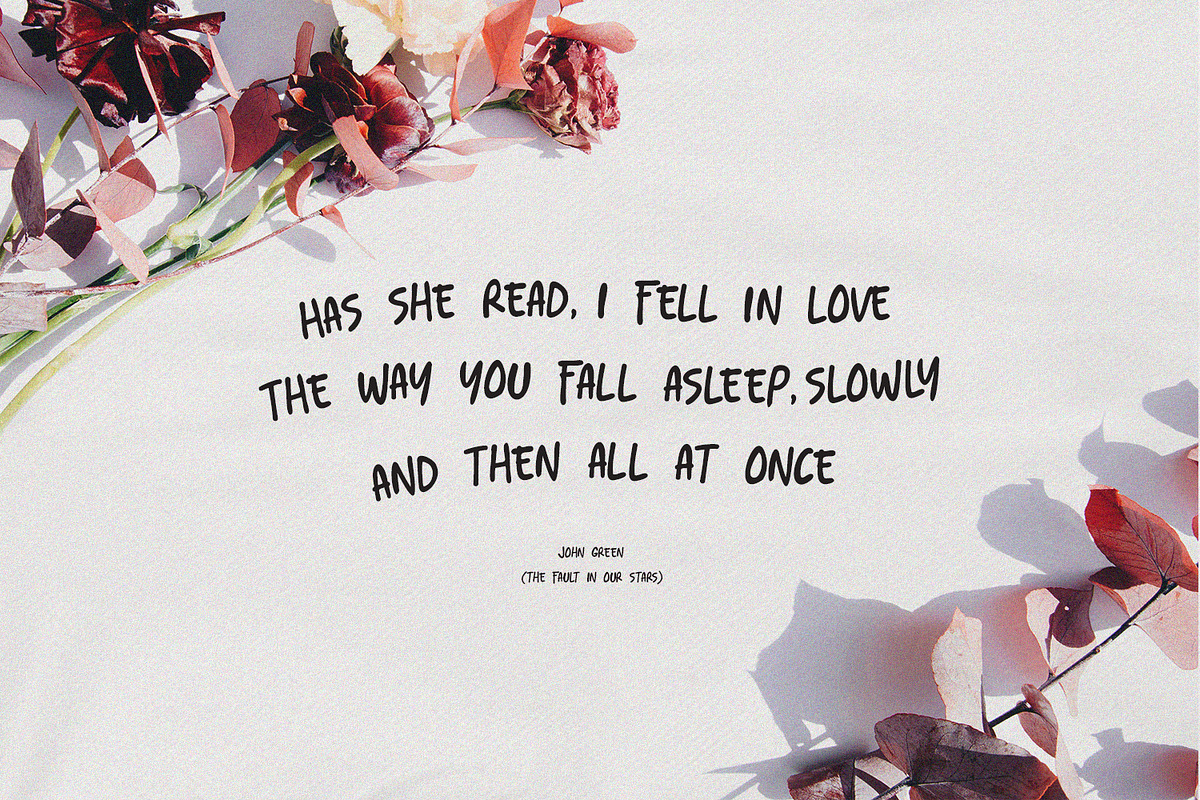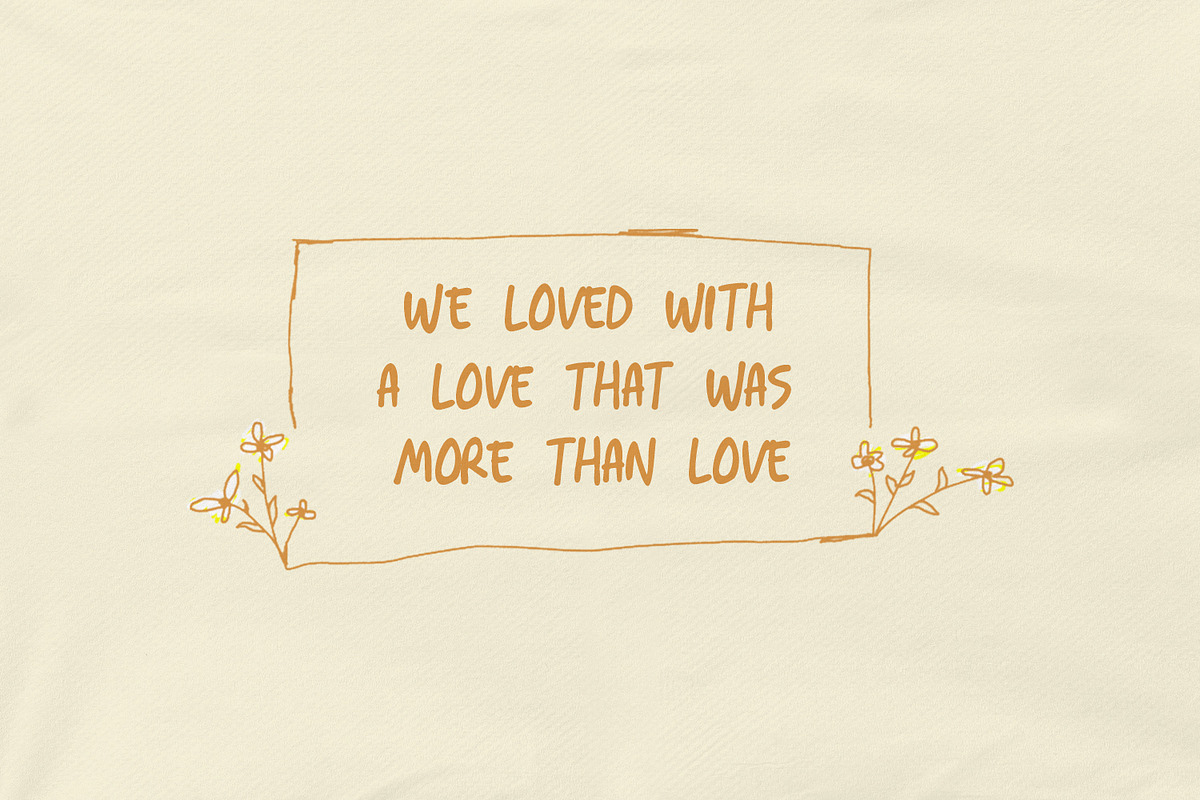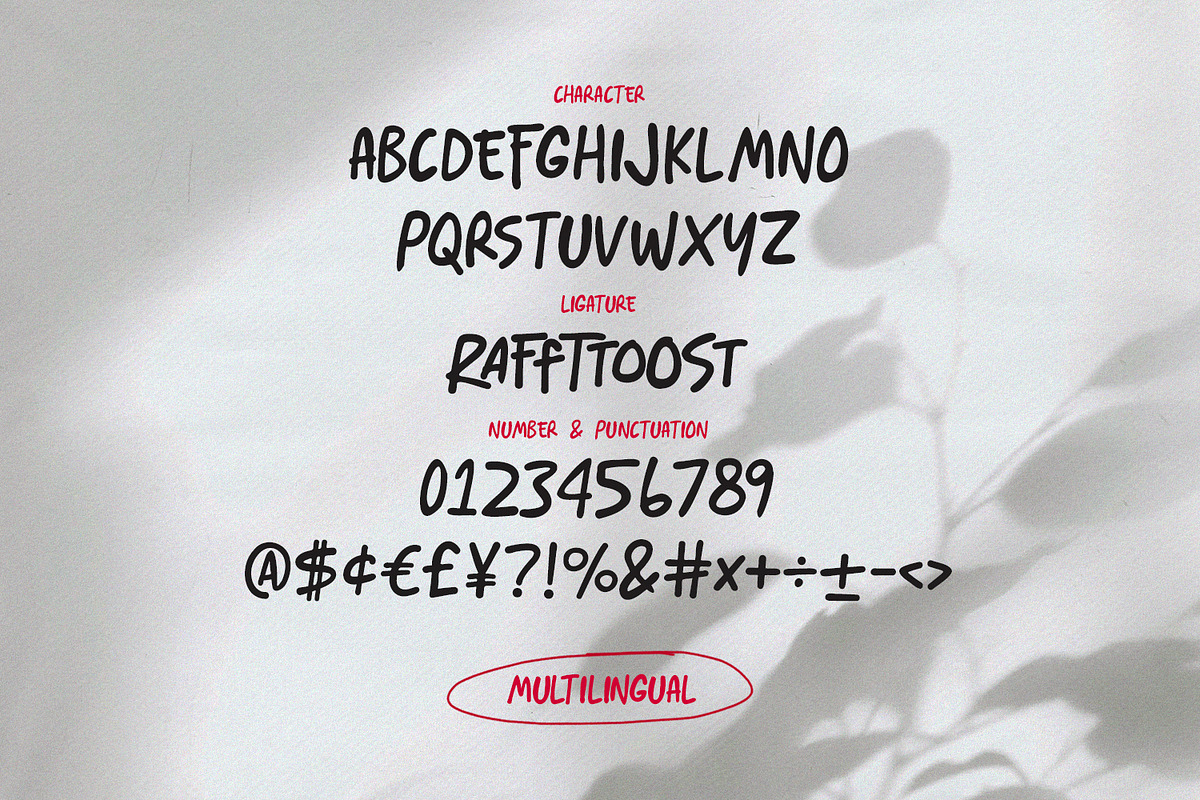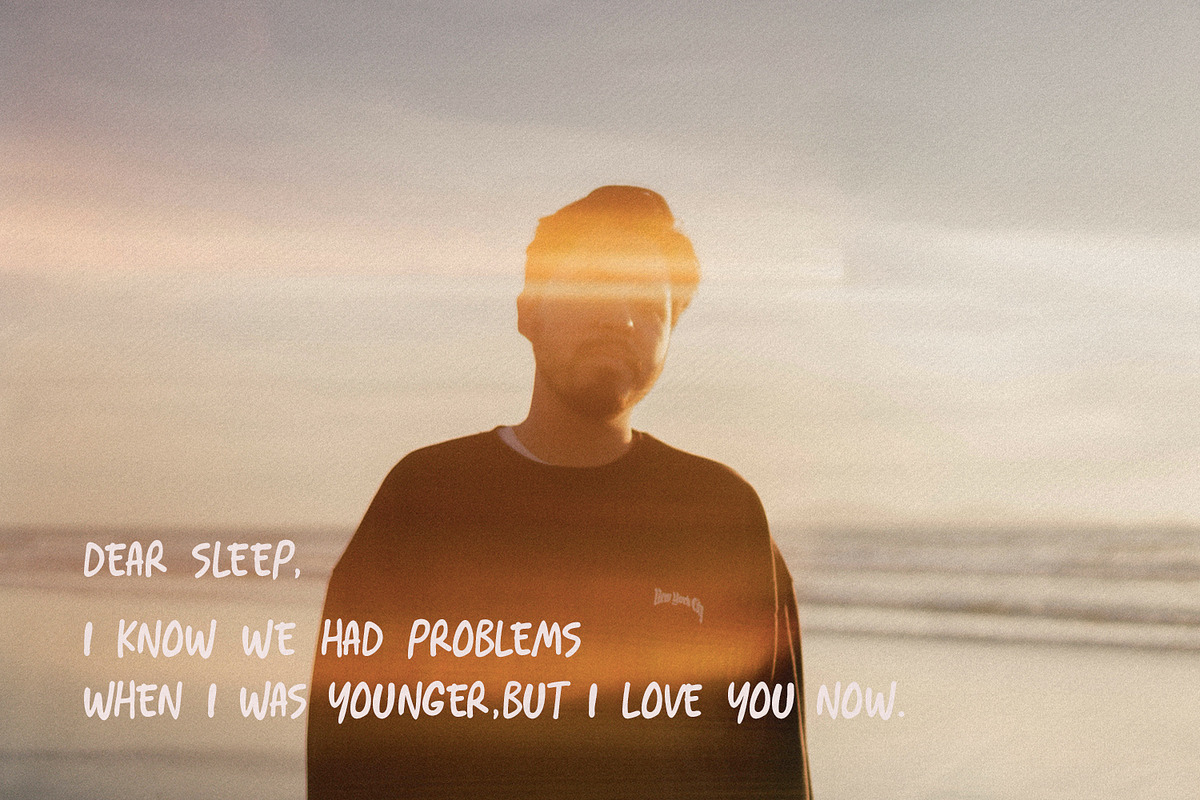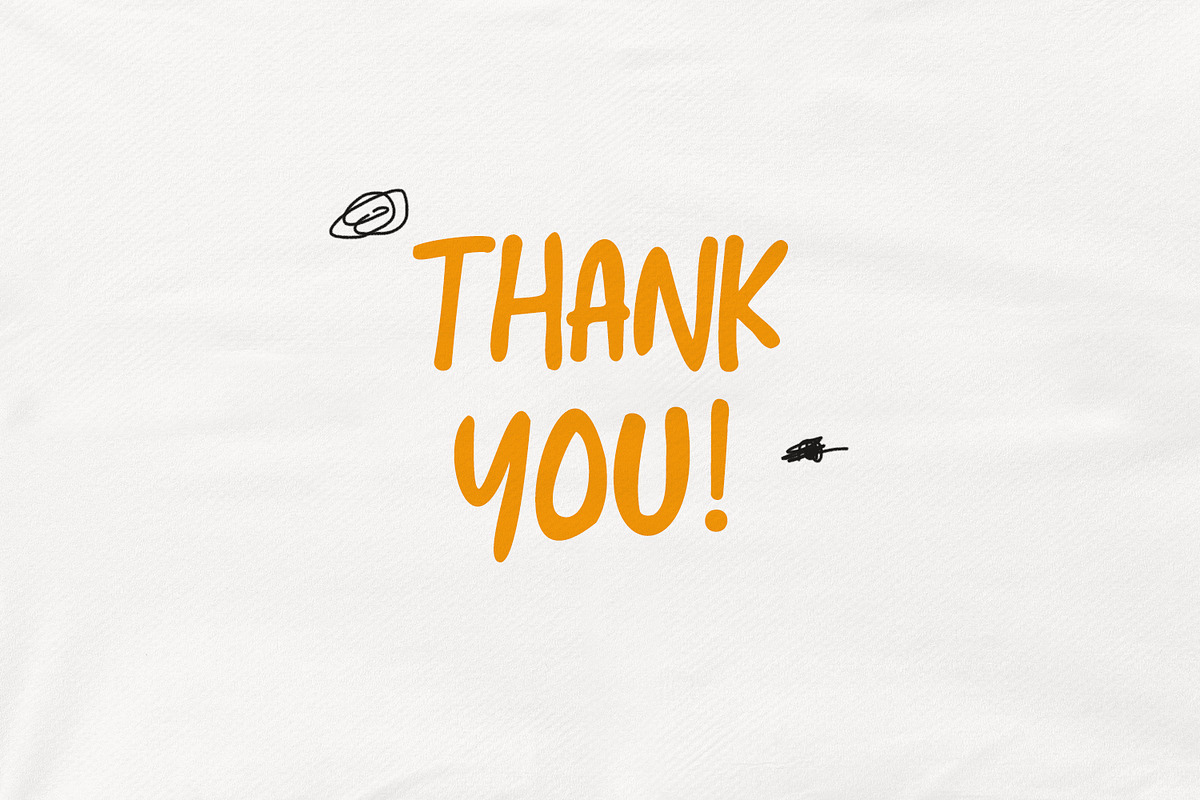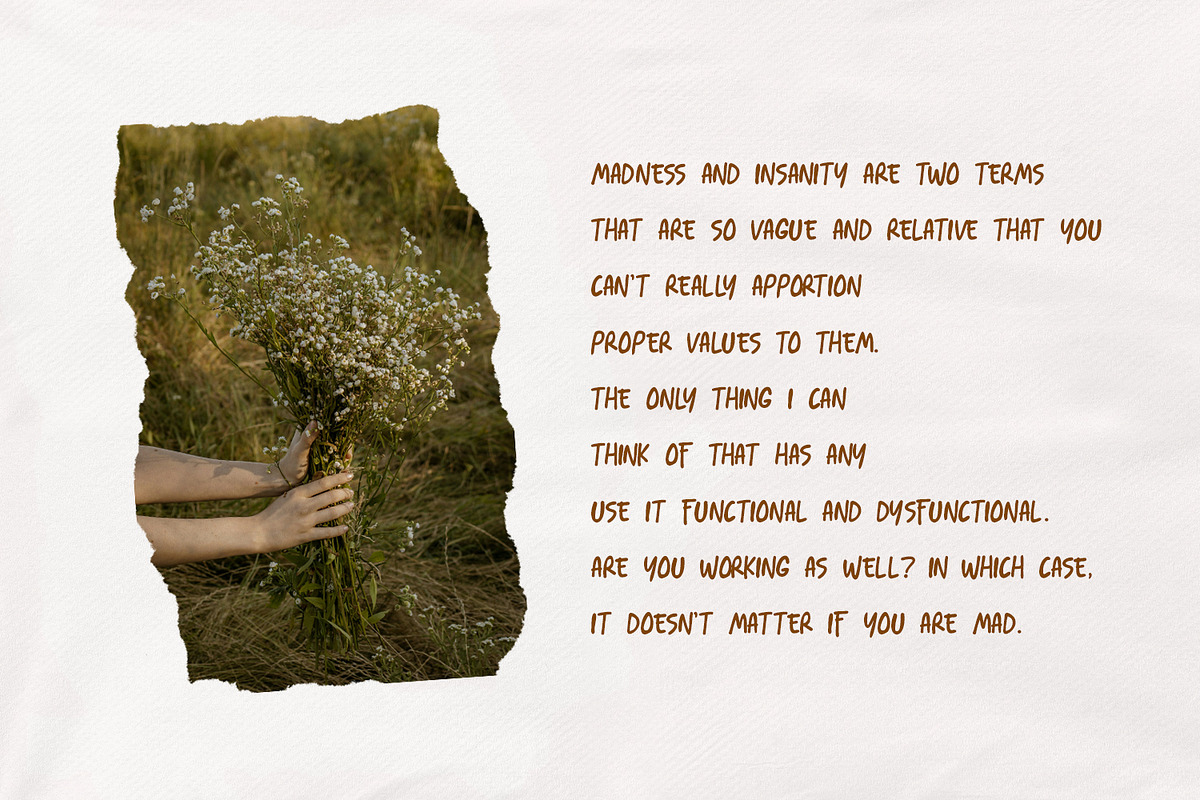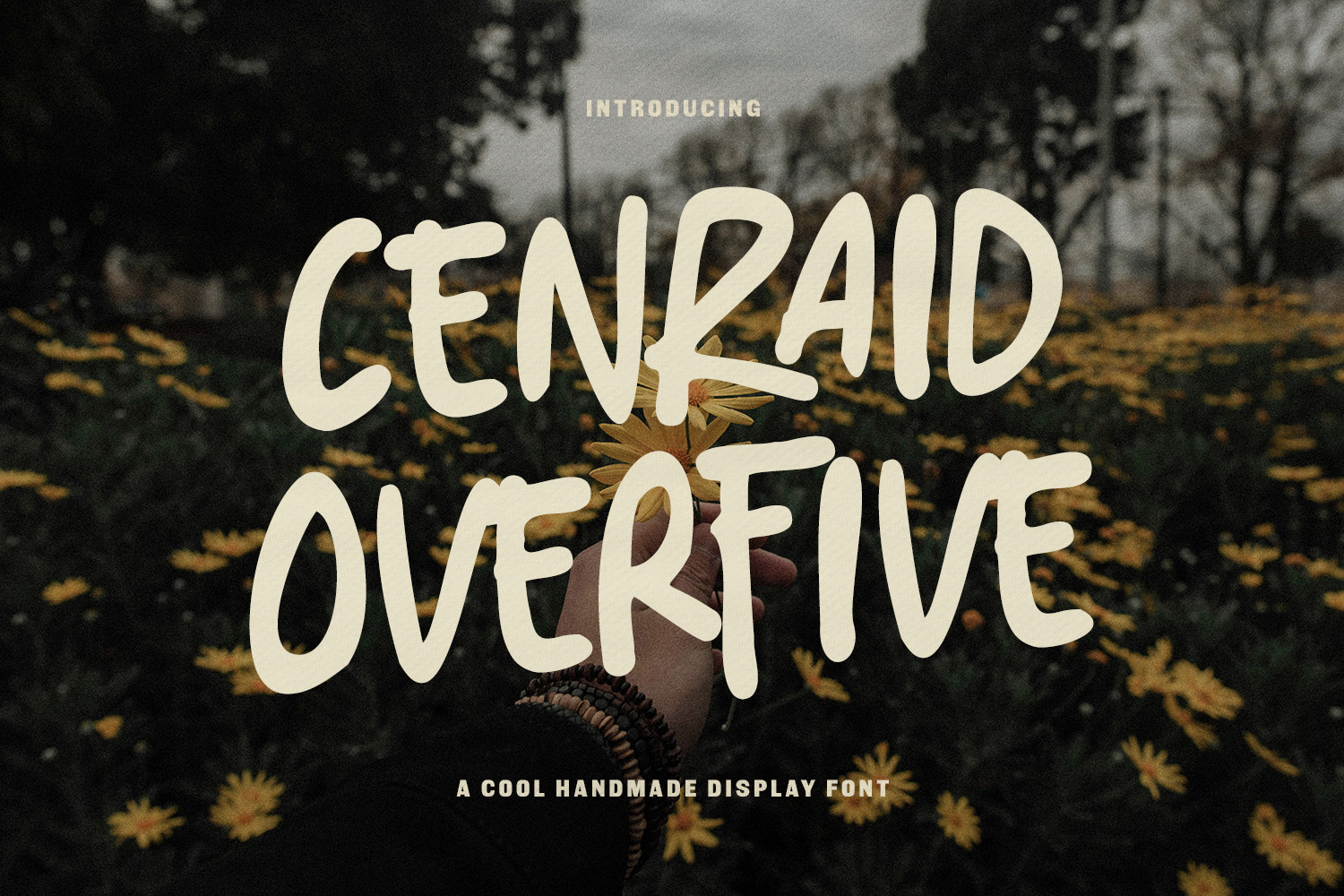
Cenraid Overfive Cool Handmade Font
Cenraid Overfive is a quirky, bold, and delightfully imperfect display font that perfectly captures the spirit of authentic, casual, and fun design. Born from a love for the organic feel of hand lettering, this font features thick, bouncy strokes and a relaxed baseline that brings an immediate sense of warmth and personality to any project.
Why Cenraid Overfive is your next go to font:
- Authentic Handmade Vibe: Break away from rigid, sterile fonts. Cenraid Overfive unique character adds a human, relatable, and genuinely cool touch to your work.
- High Impact Display: Its thick, rounded letters make it stand out instantly, making it perfect for headlines, titles, and large scale applications.
- Versatile & Fun: Whether you're designing for a brand, a playful childrens, a dynamic social media campaign, or impactful product, this font delivers a fresh, energetic look.
- Full Feature Set: Includes a complete set of Uppercase Characters, Numbers, Punctuation, and powerful Ligatures to ensure a seamless and stylish flow between letters.
- Multilingual Support: Reach a global audience with extensive multilingual characters, ensuring your message is understood everywhere.